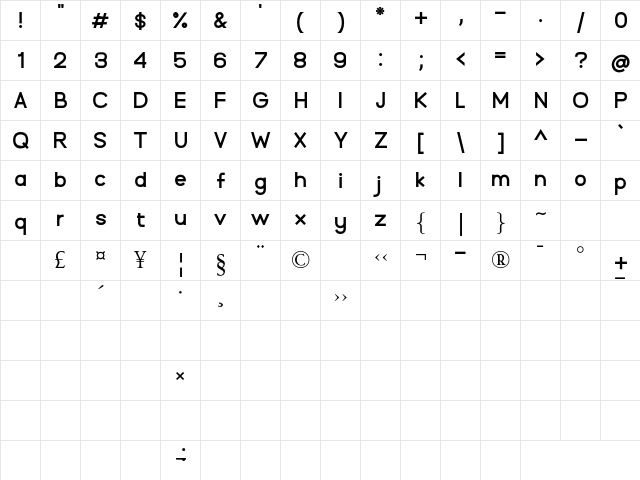
Branding Pro Bold
Design Context for Branding Pro Typeface
Branding Pro offers clean, dependable letterforms without strong stylistic allegiance, making it a practical choice for designers who need flexibility. The heavy weight commands attention and anchors typographic hierarchies.